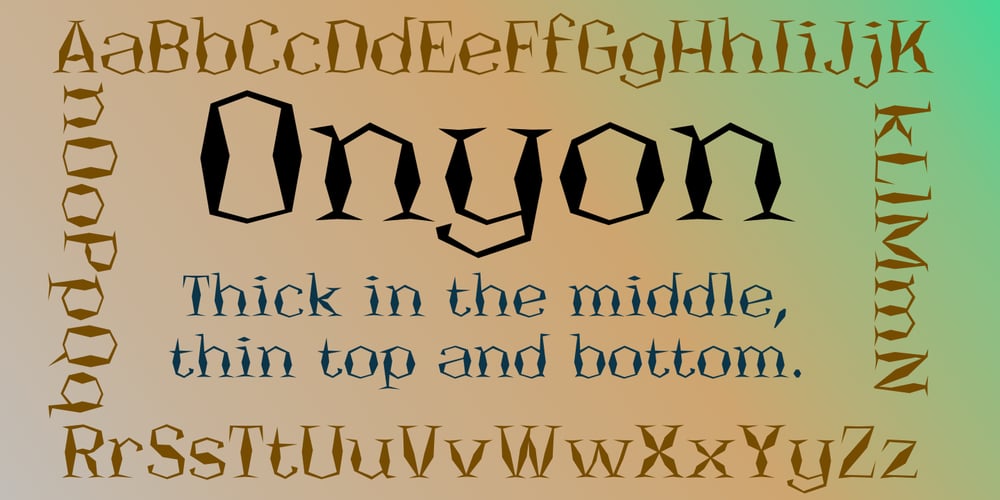
Onyon
Onyon font
Onyon Font Family was designed by Robert Schenk and published by Ingrimayne Type. Onyon contains 1 styles and family package options. Onyon is a bizarre typeface with vertical stems that thicken in the middle and narrow at the ends. It was created as an experiment to see what a typeface would look like if the vertical stems were diamond or rhombus shaped. The letters are angular with unusual triangular serifs and they have no curves. It is a harsh, cruel typeface that will make your eyes water if you use it at small point sizes for text.